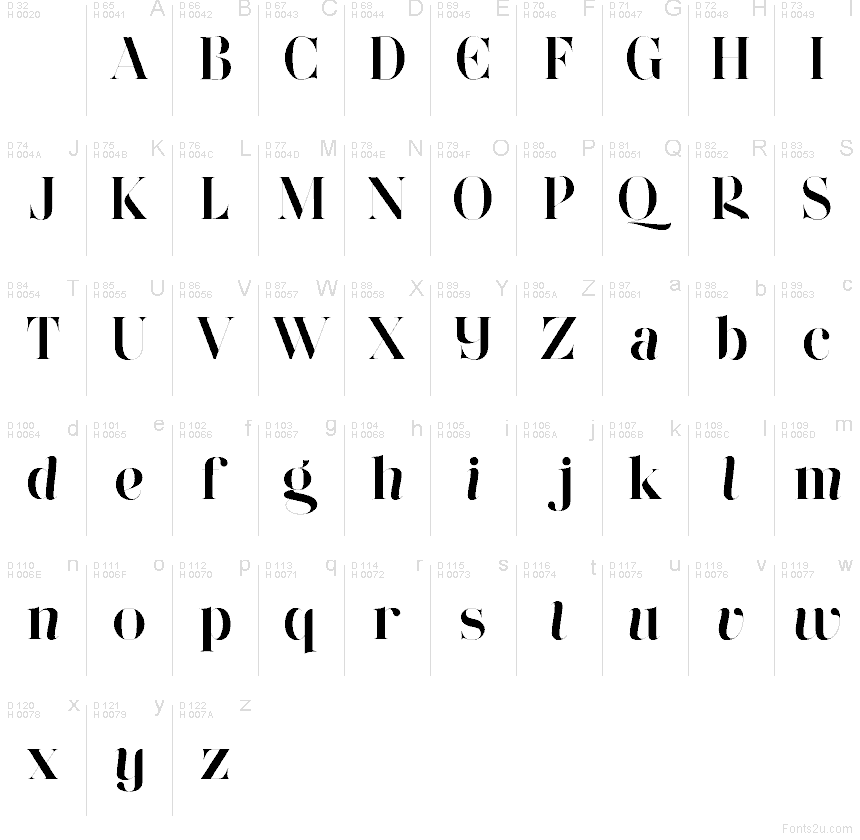
Koruva Demo Regular
Koruva font by VPcreativeshop is a free serif typeface with a striking, sculpted presence. Its tall letters feel carved rather than written, with bold inky strokes sliced by clean, vertical gaps that create a subtle stencil effect. The curves stay lush and flowing, so it feels luxurious and editorial rather than mechanical, like headlines lifted from a fashion magazine masthead.
Using Koruva, you get a dramatic mood that instantly elevates logos, packaging, posters, book covers, invitations, and social media graphics. This free font shines when set large, where those elegant cuts and sweeping curves can breathe; pair it with a simple sans-serif for body text to keep layouts readable and refined.